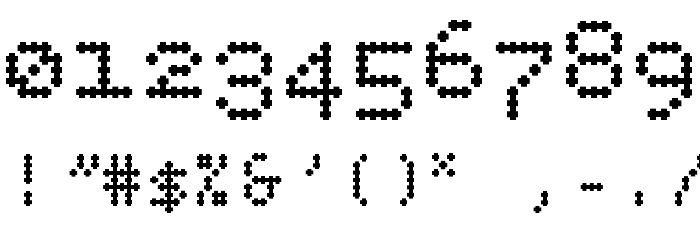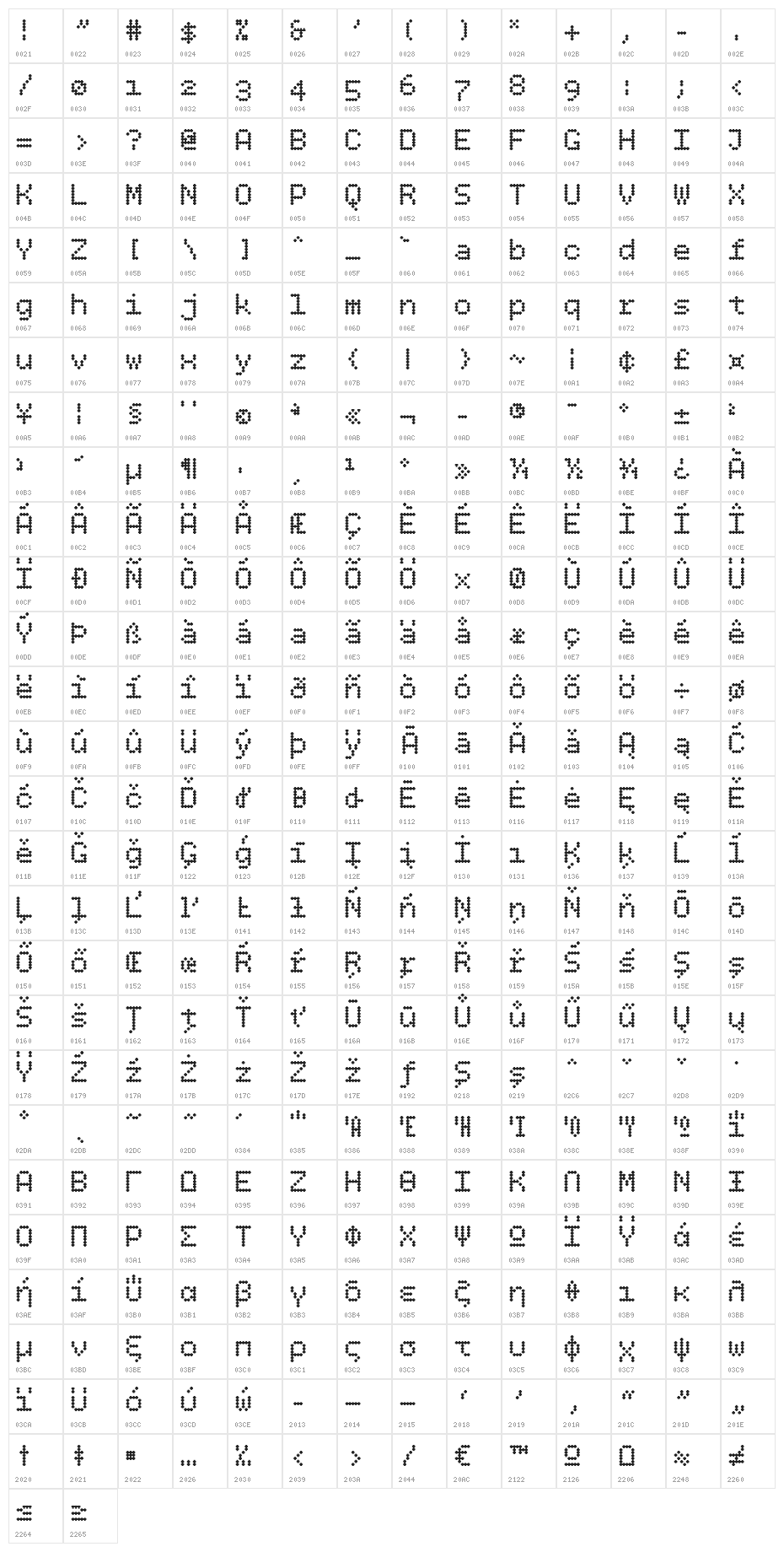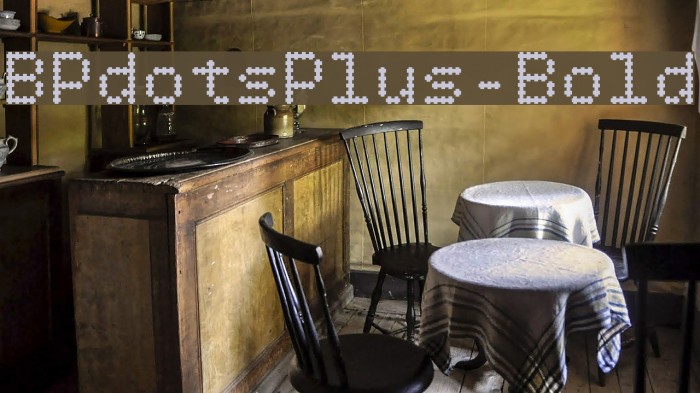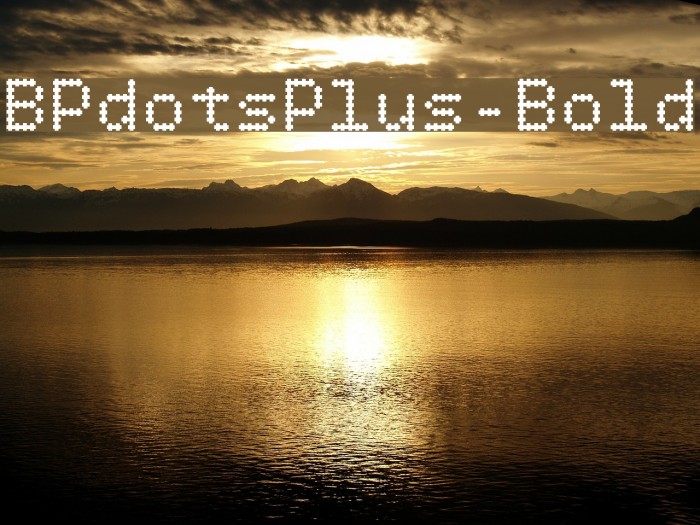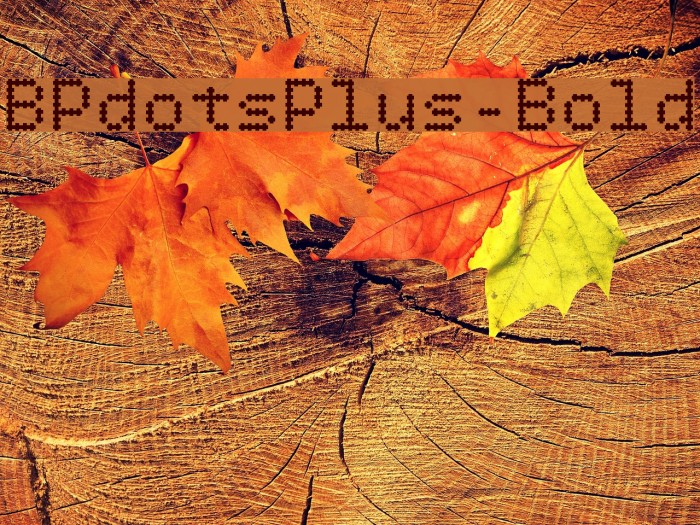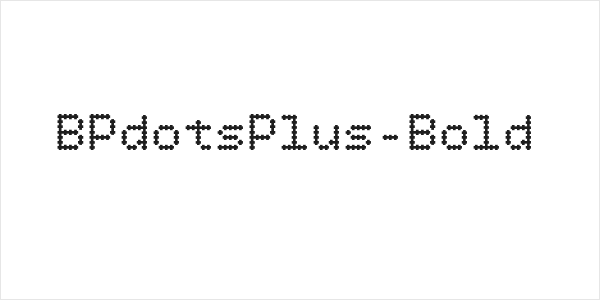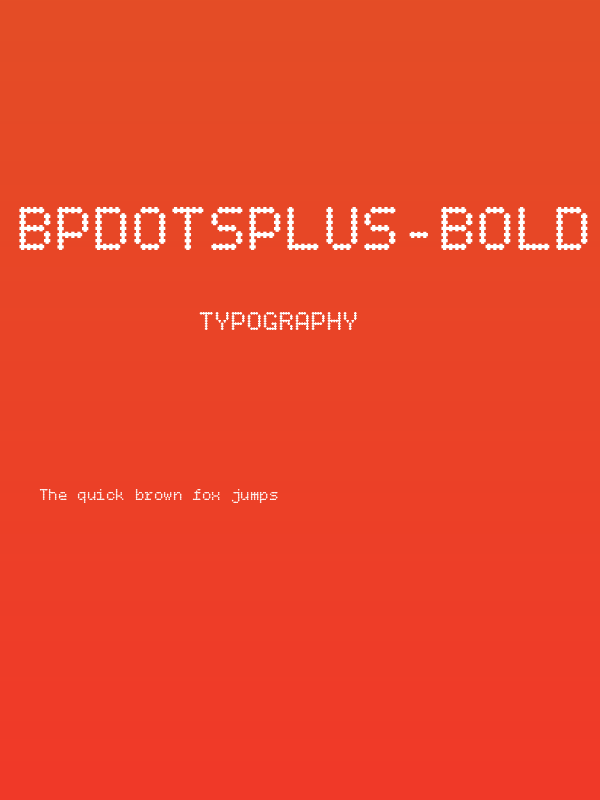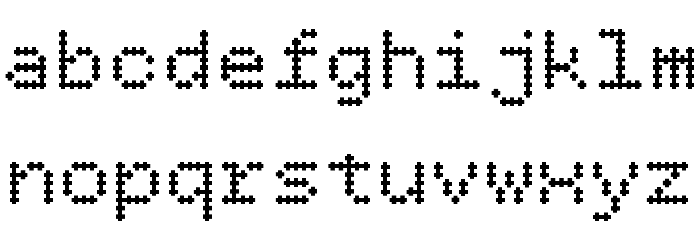
BPdotsPlus-Bold Font
BPdotsPlus-Bold Description
This font features a unique design composed entirely of dots, creating a digital and pixelated appearance. Each character is formed by a grid of dots, providing a retro, tech-inspired aesthetic reminiscent of early digital displays or LED screens. The uniformity of the dots gives the font a monospaced feel, although it maintains a playful and decorative style. The characters are clear and legible, with consistent spacing and alignment, making it suitable for creative projects that require a modern yet nostalgic touch.
Overall StyleModern, Retro
Use CaseLogos, Headlines, Digital Art
Proposed ProjectsIdeal for digital art, retro-themed designs, tech-related branding, or any project seeking a unique, pixelated look.